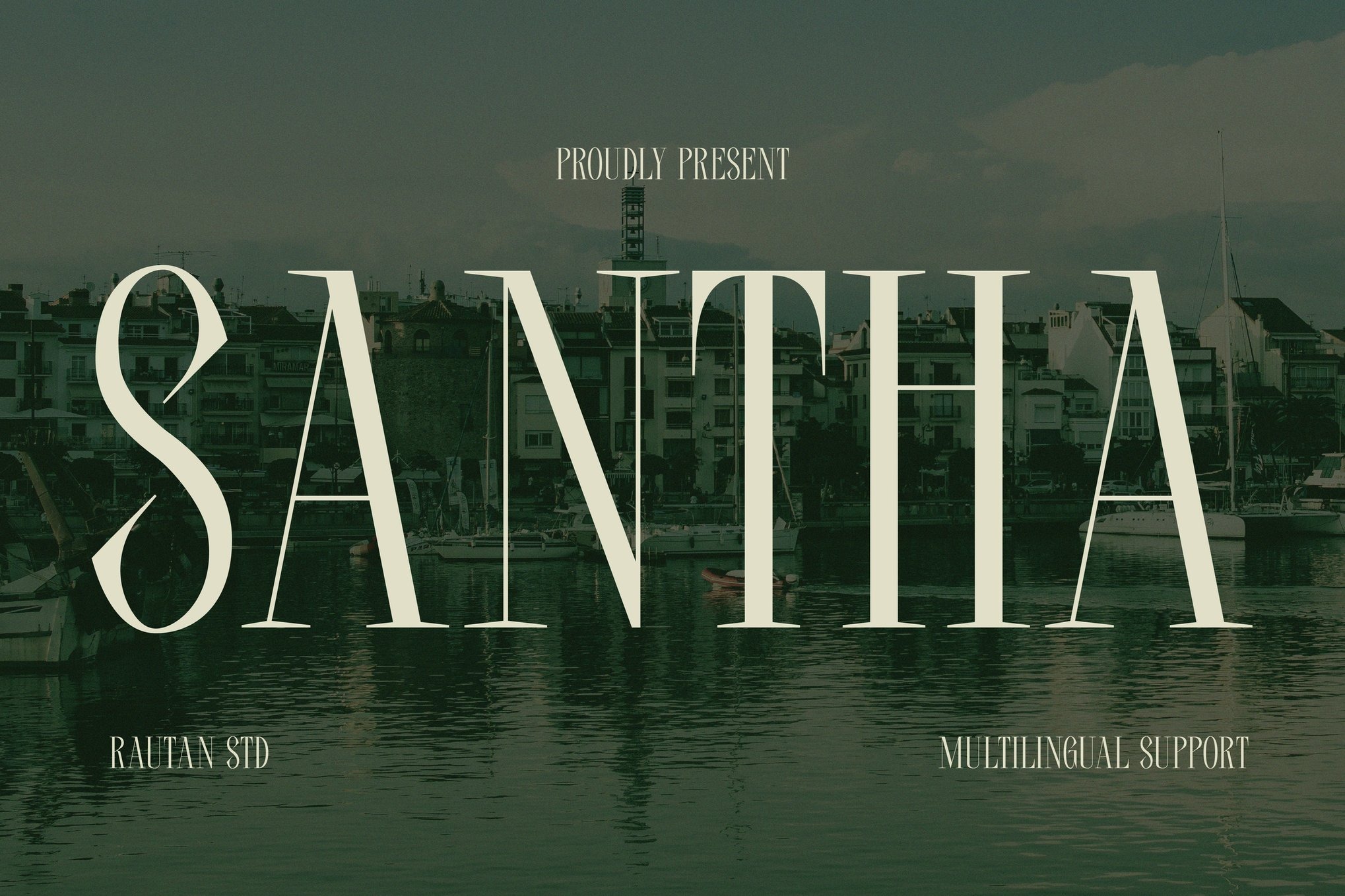
Santha – Condensed Serif Font
Santha – Condensed Serif Font is a stylish typeface that enhances visual appeal and works effortlessly in many design contexts. Santha is an elegant vintage-inspired display typeface designed for editorial layouts, branding, and refined visual storytelling. Featuring graceful high-contrast strokes, elongated proportions, and delicate serif details, this typeface creates a sophisticated presence that feels both classic and contemporary.
Its balanced letterforms combine soft curves with crisp terminals, producing a clean editorial rhythm that elevates headlines without overwhelming the layout. Perfect for branding, magazine covers, book titles, packaging, hospitality, publishing, posters, and social media campaigns, Santha delivers distinctive typography with enduring visual appeal. With multilingual support for 67 languages, Santha helps brands communicate beautifully across international audiences while maintaining a consistent identity.
Santha brings timeless elegance to projects that demand refined typography. Whether you’re creating branding, editorial spreads, product packaging, book covers, hospitality visuals, websites, or promotional campaigns, this typeface helps establish trust, sophistication, and lasting visual impact. Its vintage-inspired personality blends naturally with modern layouts, making it an excellent choice for designers seeking typography that communicates heritage, quality, and contemporary style in equal measure.
Key Features:
Elegant High-Contrast Letterforms Graceful stroke variation creates striking headlines with refined visual balance.
Vintage Editorial Style Classic proportions inspired by timeless publishing and sophisticated branding.
Perfect for Branding & Publishing Ideal for logos, editorials, book covers, packaging, hospitality, and marketing materials.
Multilingual Support – 67 Languages Designed to communicate across international markets with extensive language coverage.
Clean and Readable Display Design Maintains excellent clarity while delivering a distinctive editorial personality.
Versatile Creative Applications Suitable for print, digital media, presentations, social media, and premium brand identities.